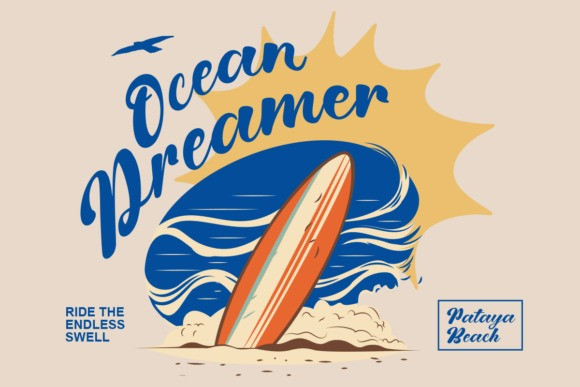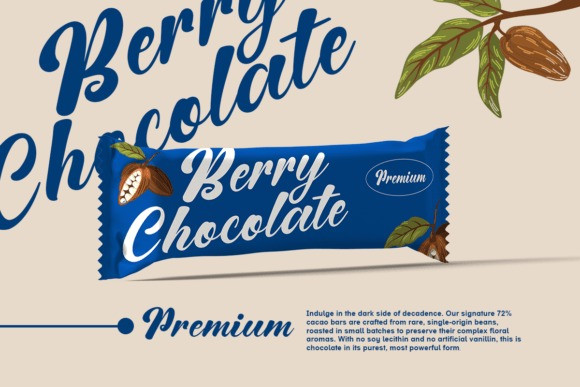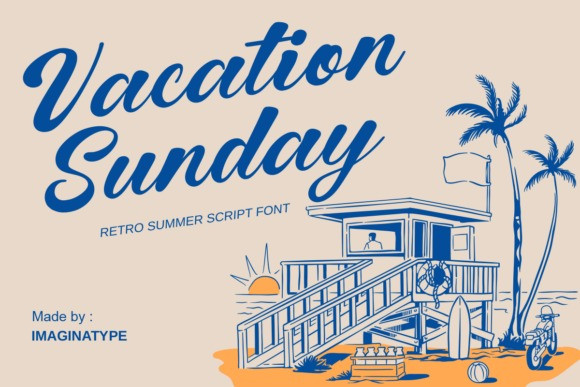
Vacation Sunday Font a bold and creamy retro script typeface. This font captures the nostalgic essence of vintage 60s postcard aesthetics and mid-century beachside signage, bringing a warm, inviting atmosphere to any project.
Unlike rough brush scripts, Vacation Sunday offers smooth, seamless connections and voluptuous curves, giving it an “elegant and beauty” finish that feels both premium and playful. It is characterized by its confident weight and rhythmic flow, reminiscent of classic baseball jerseys and old-school surf shop logos.
Whether you are designing a logo for a coffee shop by the coast, creating merchandise for a surf brand, or laying out a retro travel poster, Vacation Sunday commands attention while maintaining a laid-back, approachable vibe.